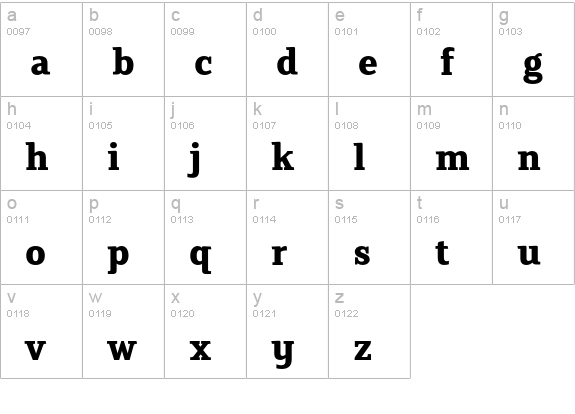
FS Clerkenwell Bold is a strong, high-contrast variant in the FS typeface family \xE2\x80\x94 well suited to headlines, attention-grabbing titles, and strong calls-to-action.
FS Clerkenwell Bold is a striking and stylish typeface that exudes confidence and modernity. With its bold and impactful design, this font is perfect for making a statement in any project. The strong lines and sharp edges give FS Clerkenwell Bold a contemporary feel, making it ideal for branding, headlines, and graphic design. What sets FS Clerkenwell Bold apart is not only its boldness but also its versatility. Whether you're designing a sleek magazine layout or creating eye-catching social media graphics, this font will help your text stand out and make a lasting impression. And the best part? FS Clerkenwell Bold is available for free download at FontsMarket.com. So go ahead and elevate your designs with this exceptional font that combines style, strength, and sophistication.